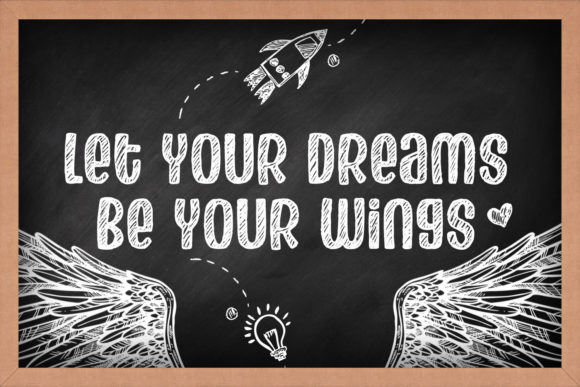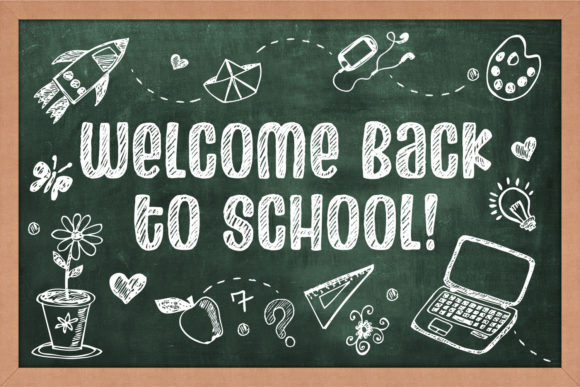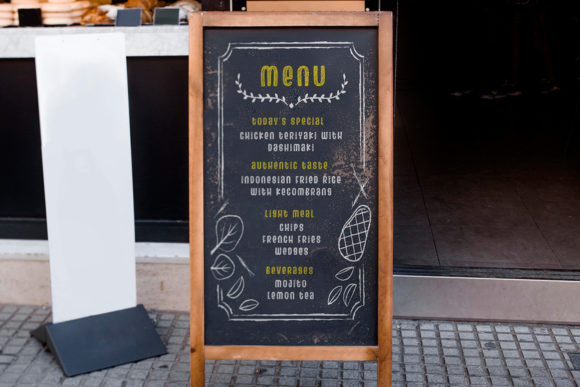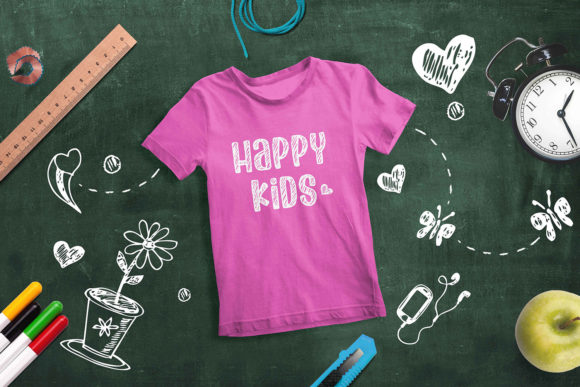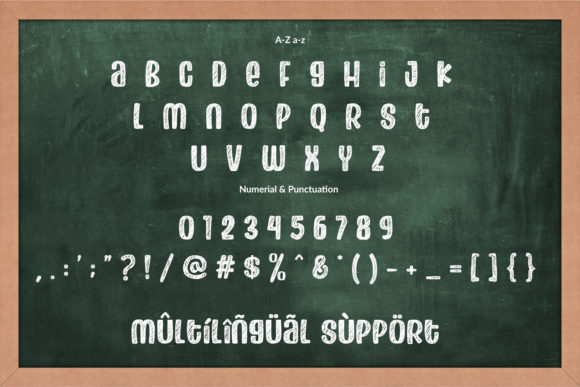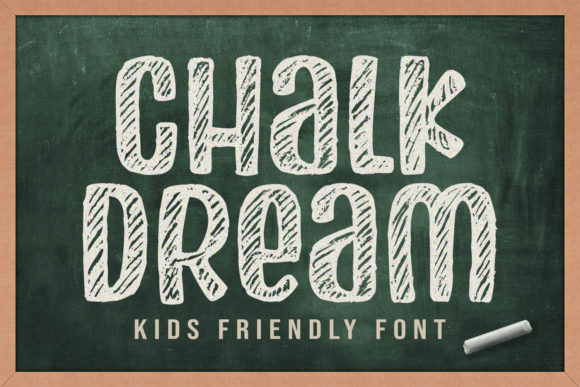
Introducing Chalk Dream Font: Add a Lovely Touch to Your Designs
Are you looking for a font that can add a playful and fun touch to your designs? Look no further than the Chalk Dream Font. This bold and useful display font is perfect for a variety of creative projects, from cartoon-related designs to children’s games and more. In this article, we’ll take a closer look at the Chalk Dream Font and explore its features, benefits, and uses.
What is Chalk Dream Font?
Chalk Dream Font is a display font designed to bring a touch of playfulness and fun to your designs. Its bold and chunky letters are reminiscent of chalk writing on a blackboard, making it perfect for projects that require a whimsical and nostalgic feel. The font is highly versatile and can be used for a wide range of creative projects, from digital designs to print materials.
Key Features of Chalk Dream Font
- Bold and Fun Design: The Chalk Dream Font features bold and chunky letters that are sure to grab attention.
- Highly Versatile: The font is perfect for a variety of creative projects, from cartoon-related designs to children’s games and more.
- Easy to Read: Despite its bold design, the font is easy to read, making it perfect for use in titles, headings, and other display text.
Benefits of Using Chalk Dream Font
So why should you choose the Chalk Dream Font for your next design project? Here are just a few benefits of using this amazing font:
- Adds a Playful Touch: The Chalk Dream Font adds a playful and fun touch to your designs, making them more engaging and attention-grabbing.
- Increases Creativity: The font’s bold and chunky design can help inspire creativity and add a fresh perspective to your designs.
- Perfect for Children’s Designs: The font is perfect for use in children’s designs, such as games, books, and educational materials.
- Easy to Pair with Other Fonts: The Chalk Dream Font is easy to pair with other fonts, making it perfect for use in combination with other typography.
Uses of Chalk Dream Font
The Chalk Dream Font is a highly versatile font that can be used for a wide range of creative projects, including:
- Cartoon-Related Designs: The font is perfect for use in cartoon-related designs, such as character designs, logos, and branding materials.
- Children’s Games: The font is perfect for use in children’s games, such as puzzles, quizzes, and educational games.
- Posters and Flyers: The font is perfect for use in posters and flyers, adding a bold and attention-grabbing touch to your designs.
- Digital Designs: The font is perfect for use in digital designs, such as social media graphics, blog posts, and website headers.
Tips for Using Chalk Dream Font
Here are a few tips for using the Chalk Dream Font in your designs:
- Use it as a Display Font: The Chalk Dream Font is perfect for use as a display font, adding a bold and attention-grabbing touch to your designs.
- Pair it with Other Fonts: The font is easy to pair with other fonts, making it perfect for use in combination with other typography.
- Experiment with Colors: The font looks great in a variety of colors, so don’t be afraid to experiment and find the perfect color for your design.
| Font Name | Chalk Dream Font |
| Author | Orenari |
In conclusion, the Chalk Dream Font is a bold, fun, and useful display font that’s perfect for a variety of creative projects. Its highly versatile design makes it perfect for use in cartoon-related designs, children’s games, posters, flyers, and more. With its easy-to-read design and compatibility with multiple platforms, the Chalk Dream Font is a great choice for designers and crafters looking to add a playful touch to their designs.